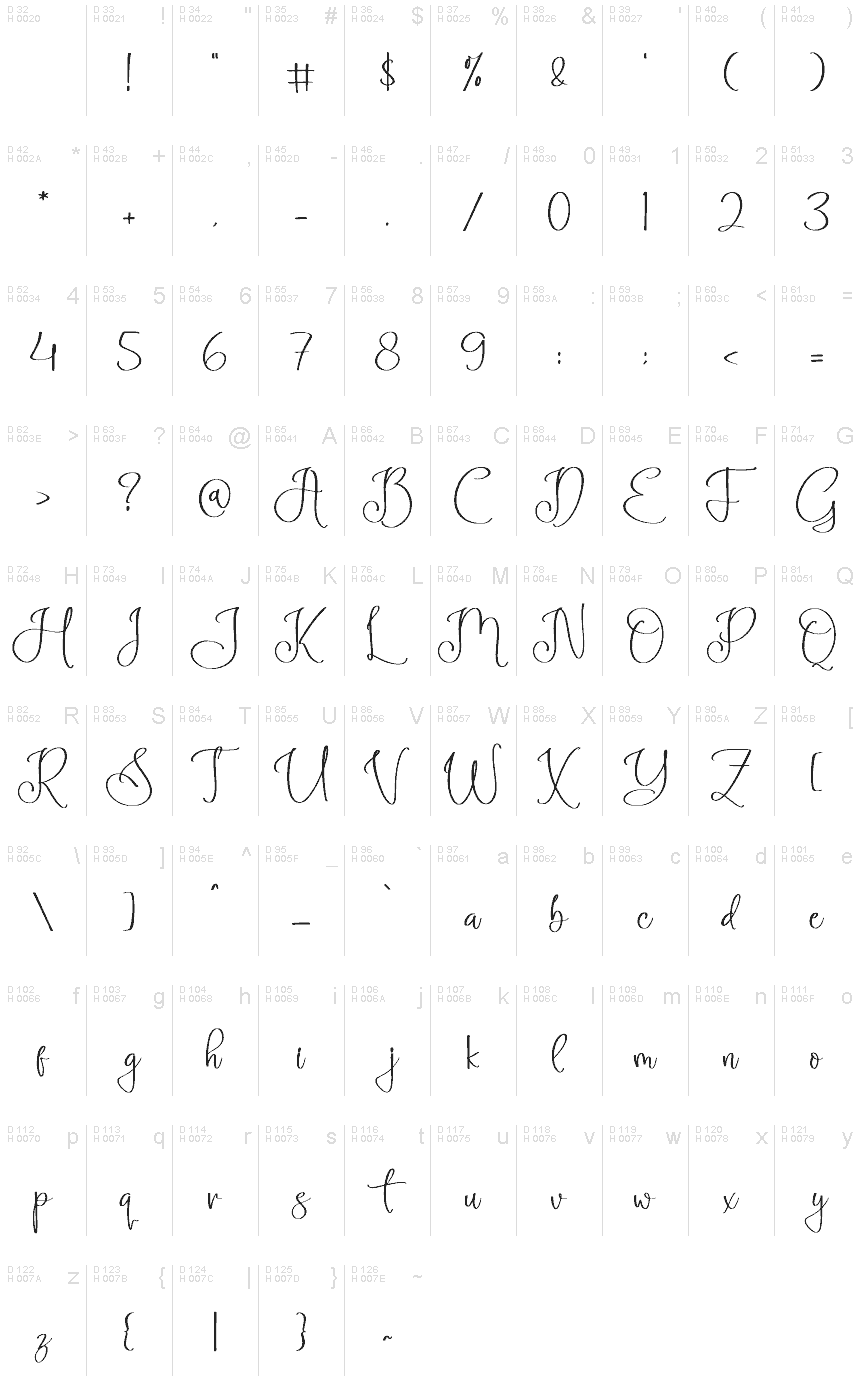
Anabellyn font is a free handwritten font with ornamental curves designed by Letterena Studios. Fluid and elegant, the light font conveys a natural effect along with charm and quirkiness. Its romantic atmosphere captures attention in a subtle manner without seeming overpowering in any way.